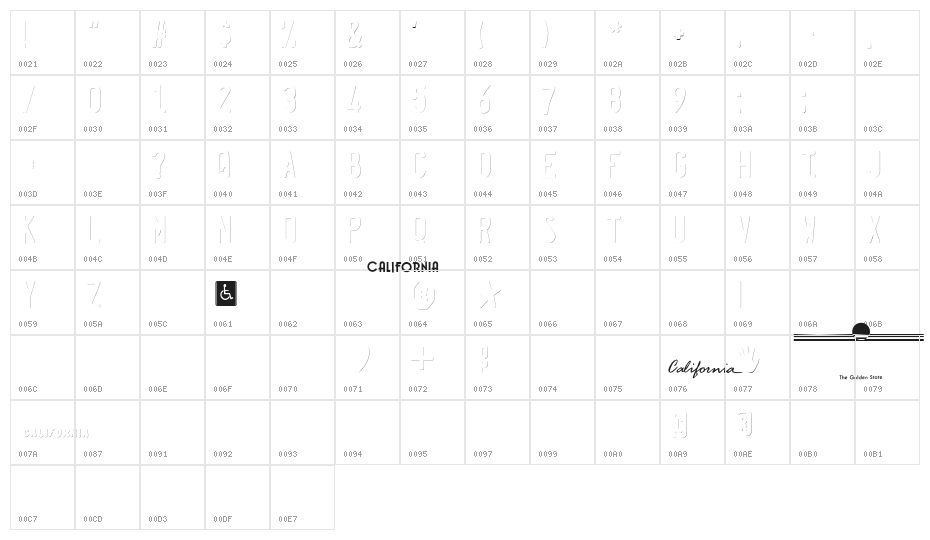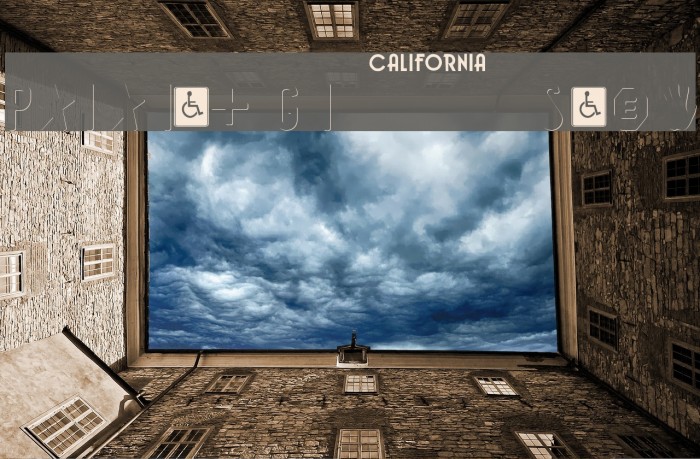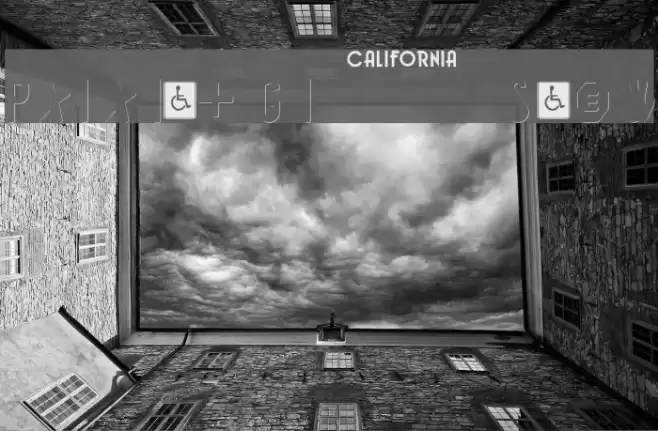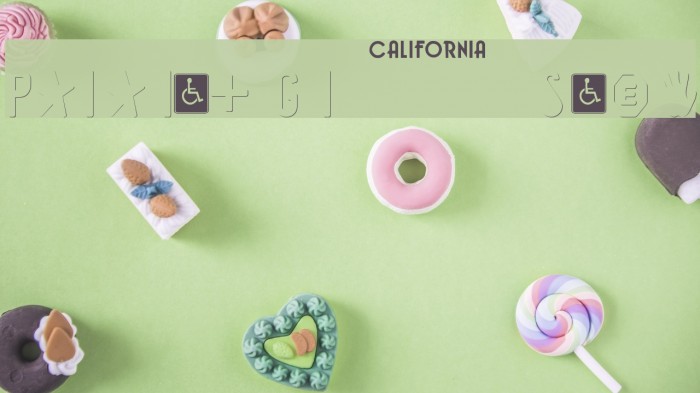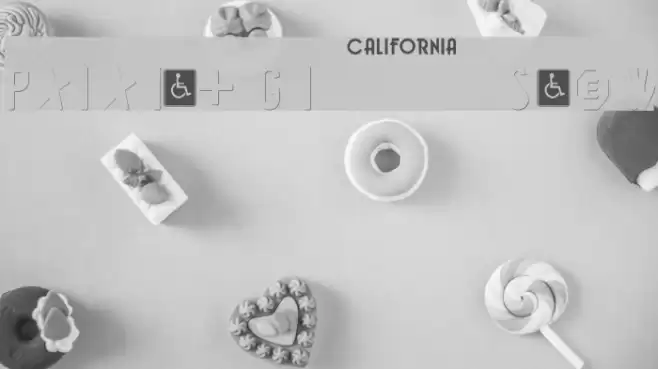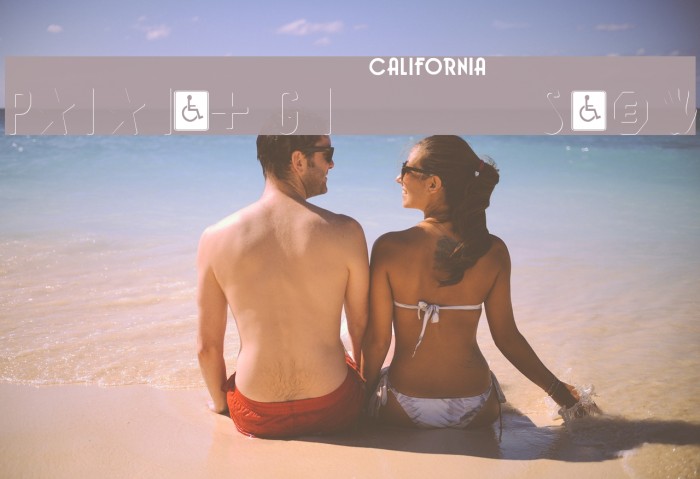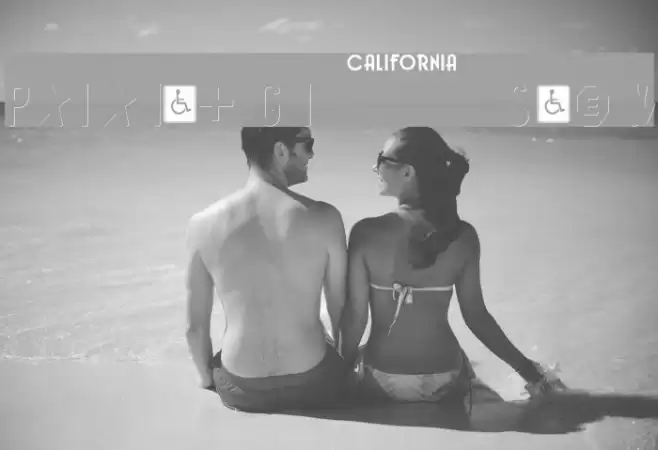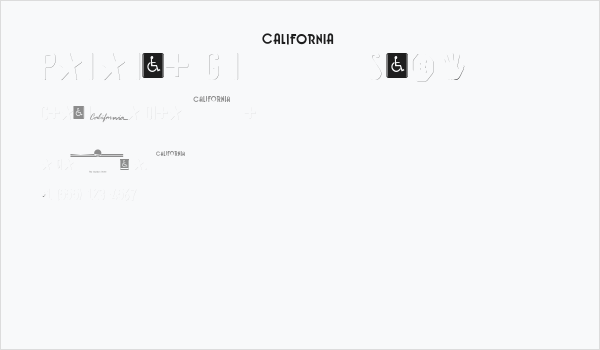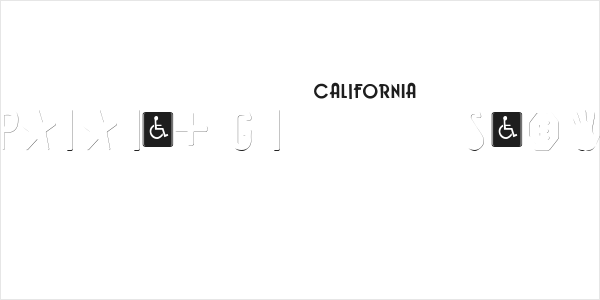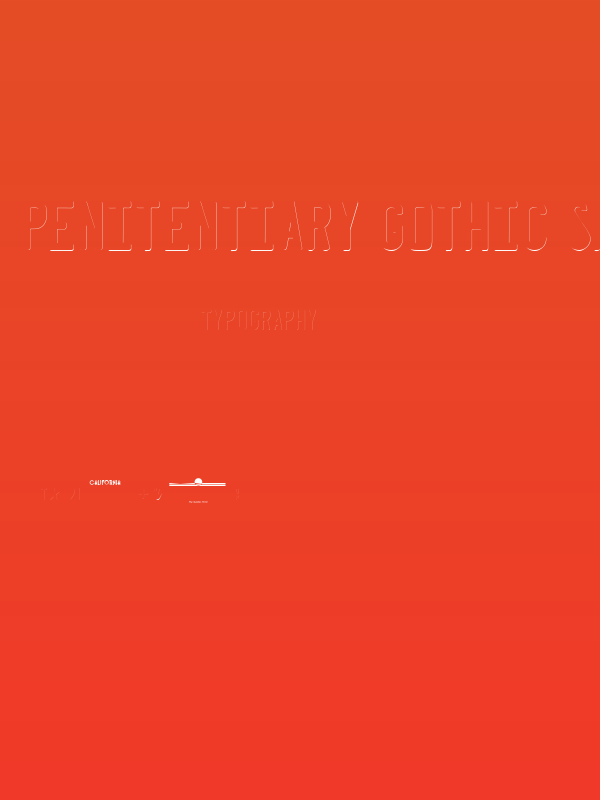
Penitentiary Gothic Shadow Font
Penitentiary Gothic Shadow Description
This font features a bold and striking design with a shadow effect that adds depth and dimension to each character. The uppercase letters are tall and narrow, giving a sense of authority and strength. The lowercase letters maintain a consistent style, complementing the uppercase with a slightly more condensed form. Numbers and special characters are designed with the same boldness, ensuring uniformity across all text. The shadow effect is prominent, creating a three-dimensional appearance that enhances readability and visual impact. This font is ideal for making a statement, with its strong lines and clear, defined shapes.
| Use Case | Headlines, Logos, Signage |
| Proposed Projects | Ideal for posters, signage, branding, and any project requiring a bold, impactful typeface. |